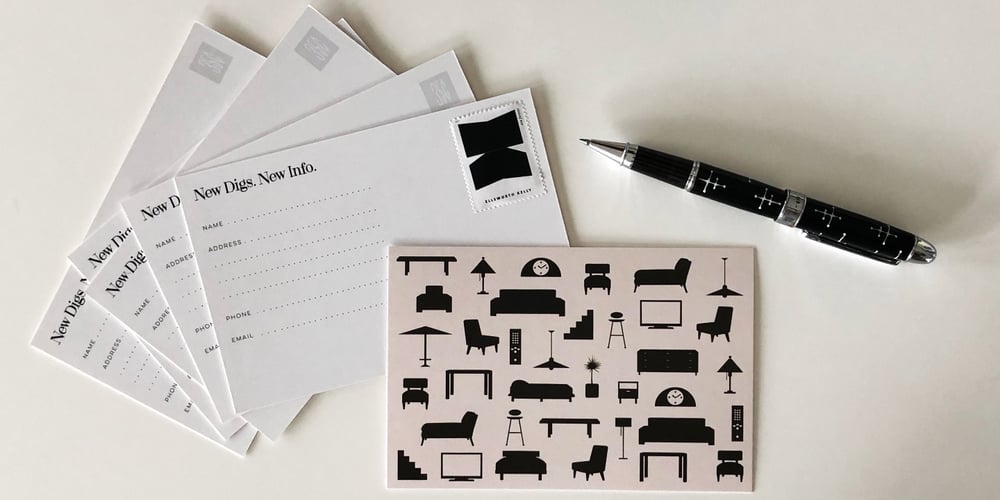
Home Sweet Home Dingbats
Home Sweet Home Dingbats font
Home Sweet Home Dingbats Font Family was designed by Rae Kaiser and published by Outside the Line. Home Sweet Home Dingbats contains 1 styles and family package options. “I could dance with you until the cows come home. On second thought I’d rather dance with the cows until you come home.” Groucho Marx. Home Sweet Home Dingbats is a 30 dingbat font of home things. Use them as dingbats or enlarge the small pictures and use them as clipart. Silhouettes include several lamps, clock, chaise, chairs, sofa, nightstand, chest, TV & remote, tables, stool, steps, beds, mirror, art, a fireplace and even a baby grand piano.